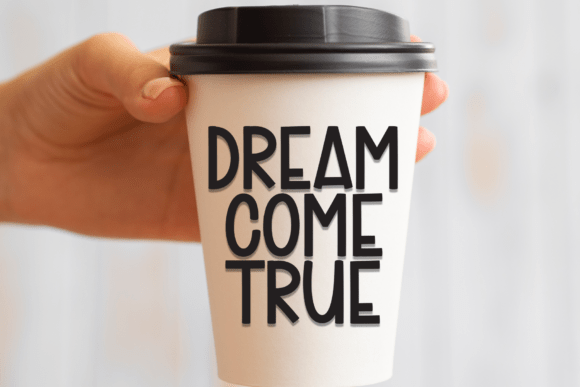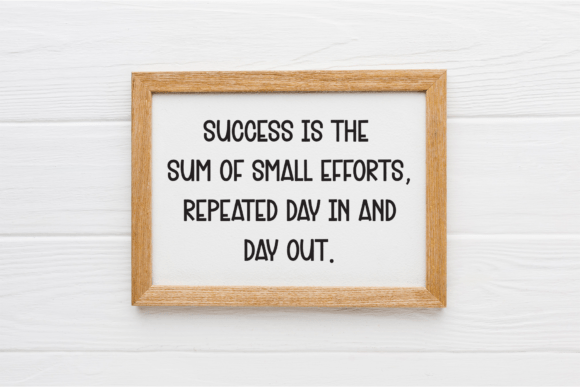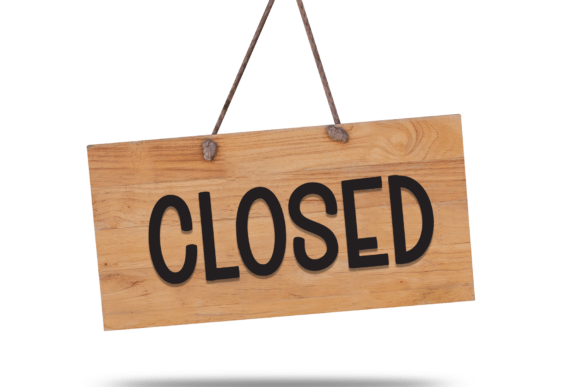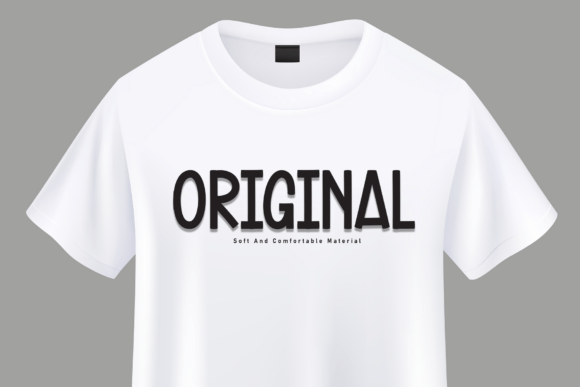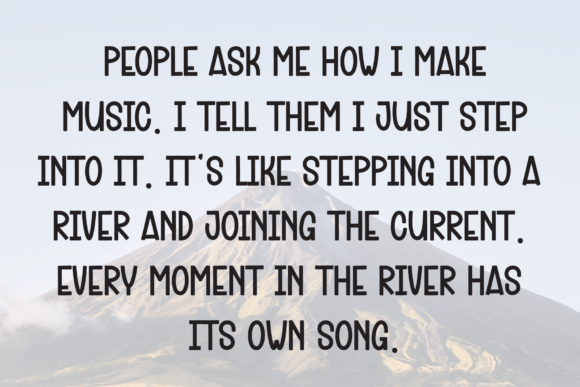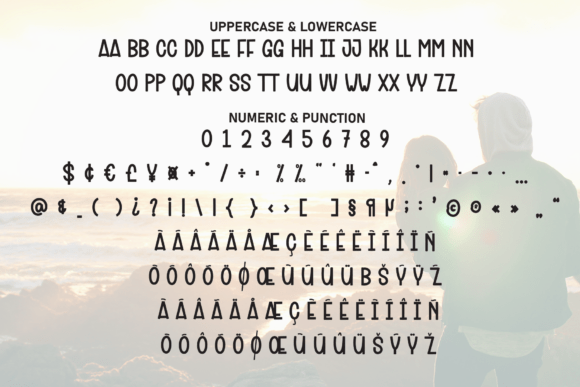
The Great Lovers Font: A Fresh and Friendly Addition to Your Design Toolkit
I’ll never forget the time I was working on a project for a client who needed a font that was both casual and sophisticated. I had spent hours scouring the internet for the perfect font, but nothing seemed quite right. That was until I stumbled upon the Great Lovers font. With its clean lines, relaxed structure, and fresh vibe, it was exactly what I needed to bring my design to life.
I’ve had the pleasure of working with the Great Lovers font for a while now, and I must say, it’s quickly become one of my go-tos. Here’s what I love about it:
- ✨ Clean and modern design: The Great Lovers font has a sleek, contemporary look that’s perfect for a wide range of design projects.
- ✅ Ease of readability: The font’s clean lines and relaxed structure make it easy to read, even at smaller sizes.
- 💬 Versatility: Great Lovers works beautifully for packaging, posters, social media graphics, and more.
Of course, no font is perfect, and there are a few quirks to be aware of:
- 🤔 Limited language support: Great Lovers currently supports a limited number of languages, so be sure to check the font’s specifications before using it for a project that requires a specific language.
- ⚠️ No italic version: If you need an italic version of the font, you may need to look elsewhere or use a faux italic effect.
A Brief Backstory: The Inspiration Behind Great Lovers
The Great Lovers font was designed with the goal of creating a fresh, friendly font that would add a touch of warmth to any design project. The designer drew inspiration from classic fonts, but with a modern twist. The result is a font that’s both approachable and polished.
| What type of projects is Great Lovers best suited for? | Great Lovers is perfect for packaging, posters, social media graphics, and any other project that requires a fresh, friendly vibe. |
| Does Great Lovers support OpenType features? | Yes, Great Lovers supports OpenType features, including glyphs and stylistic alternates. |